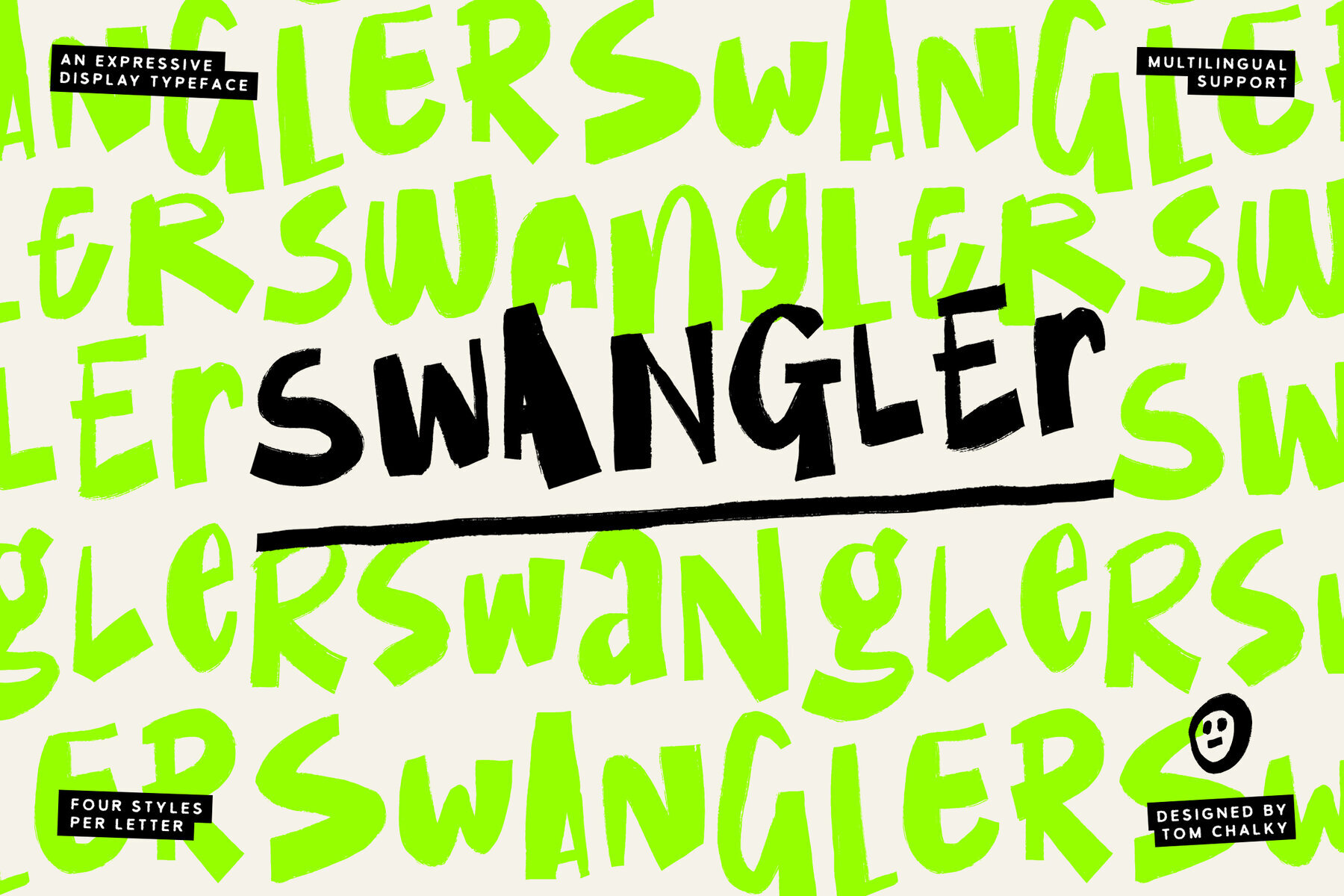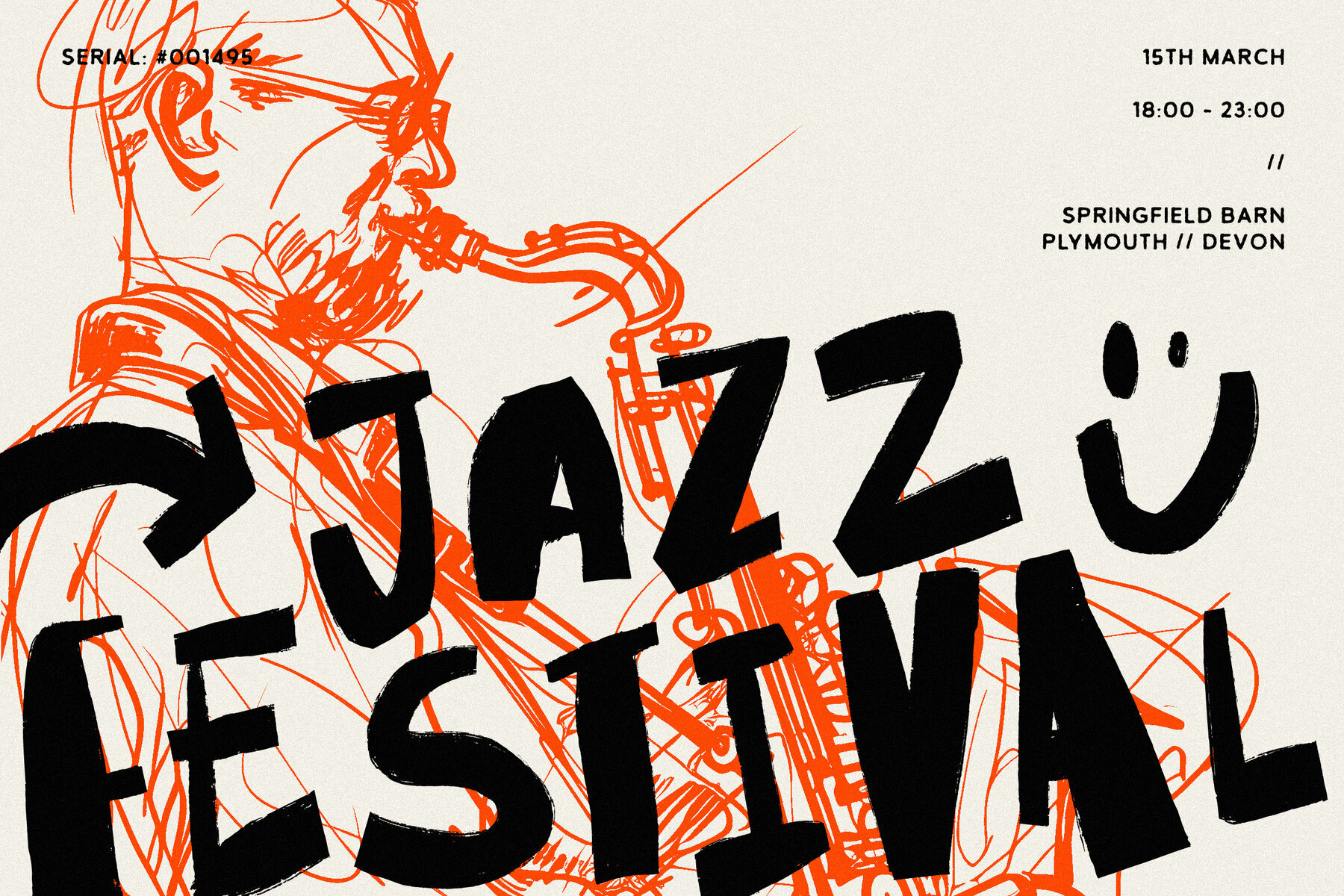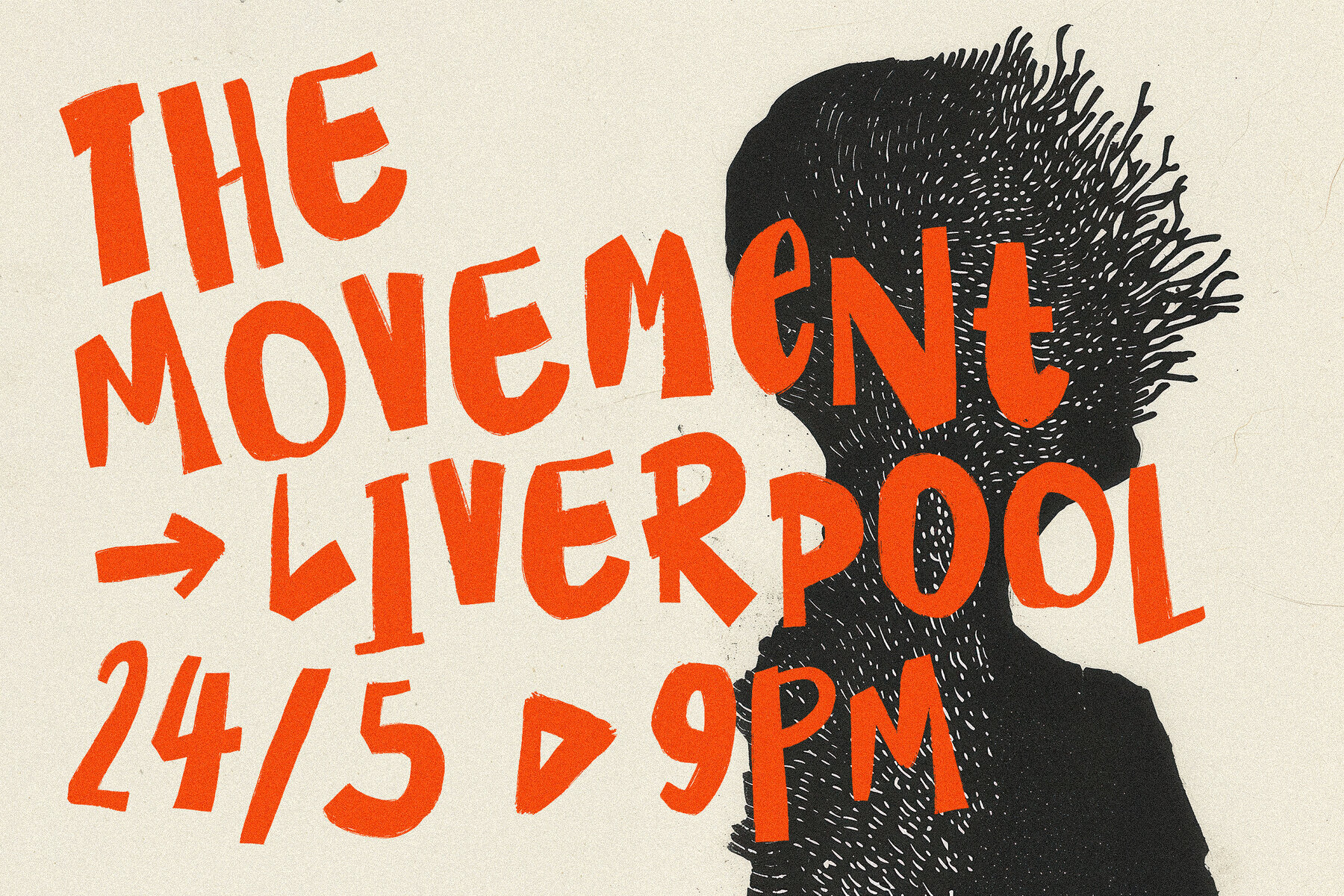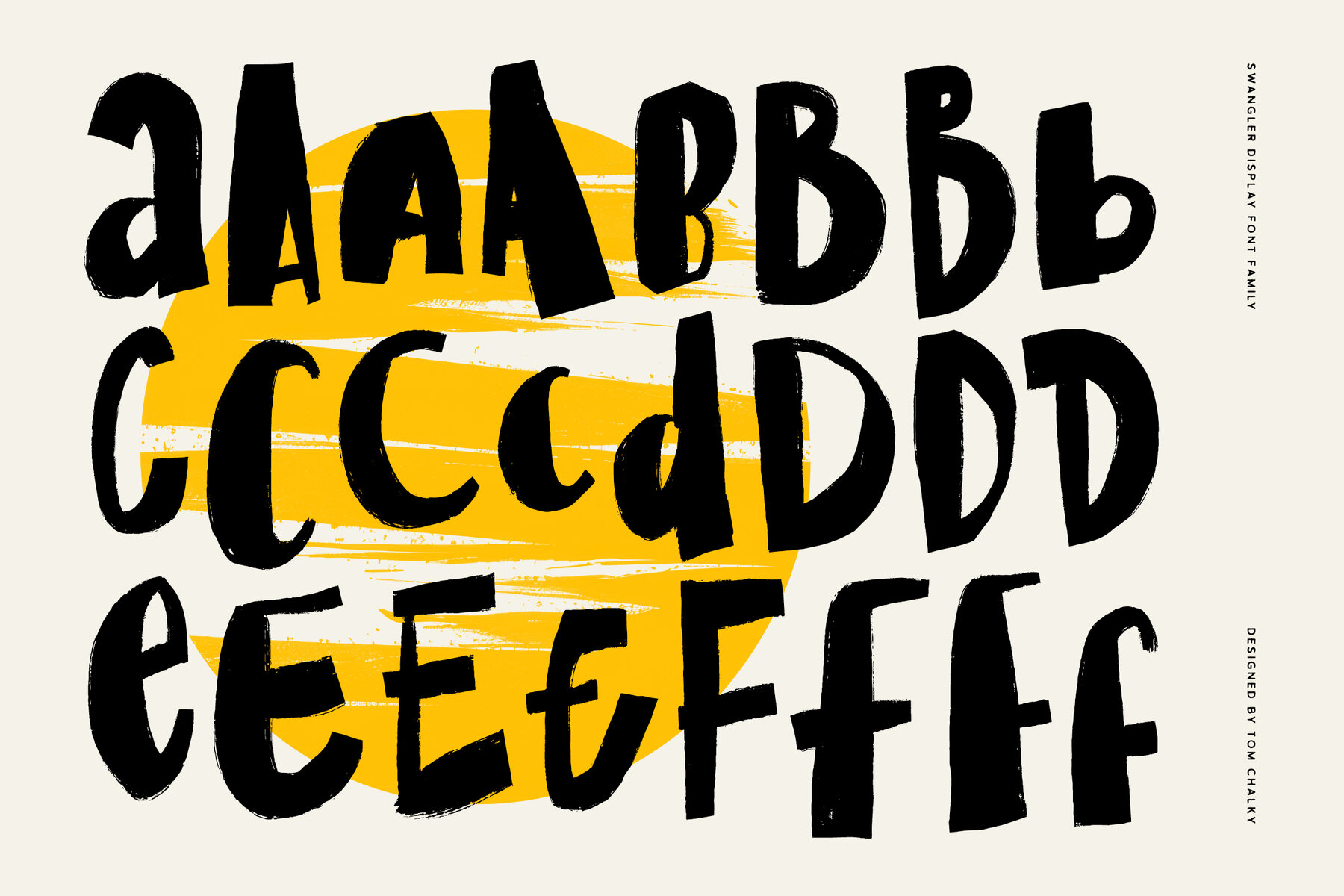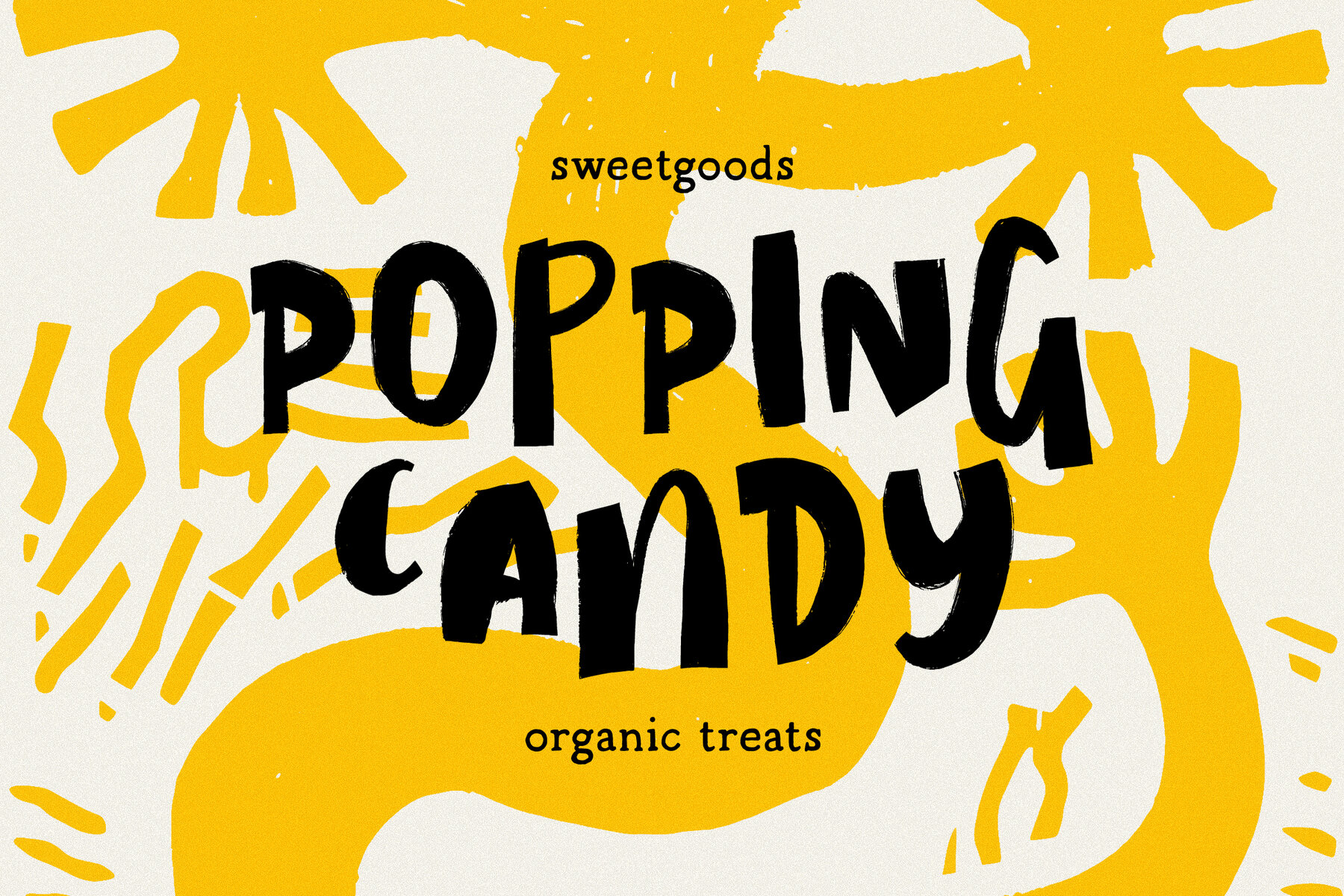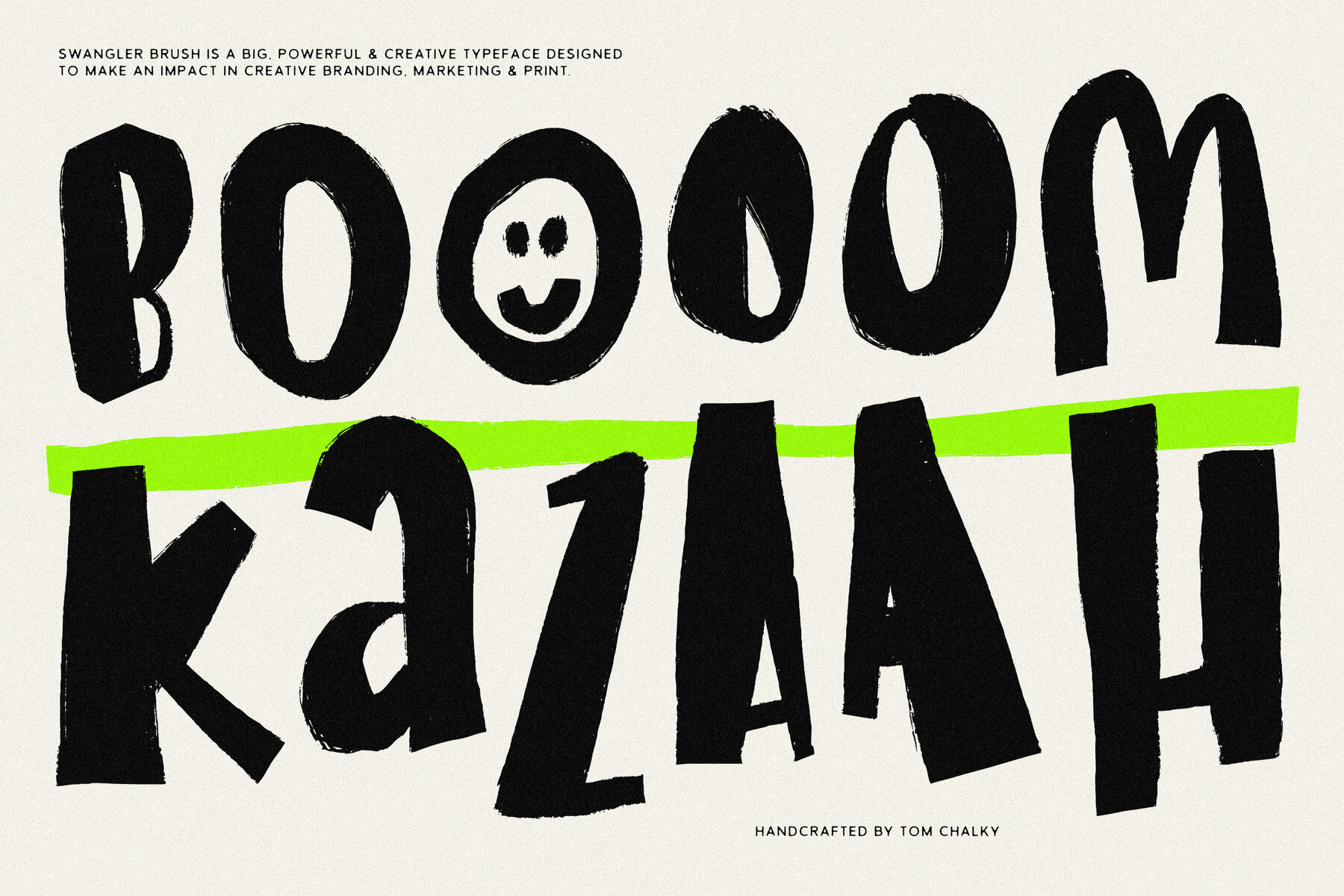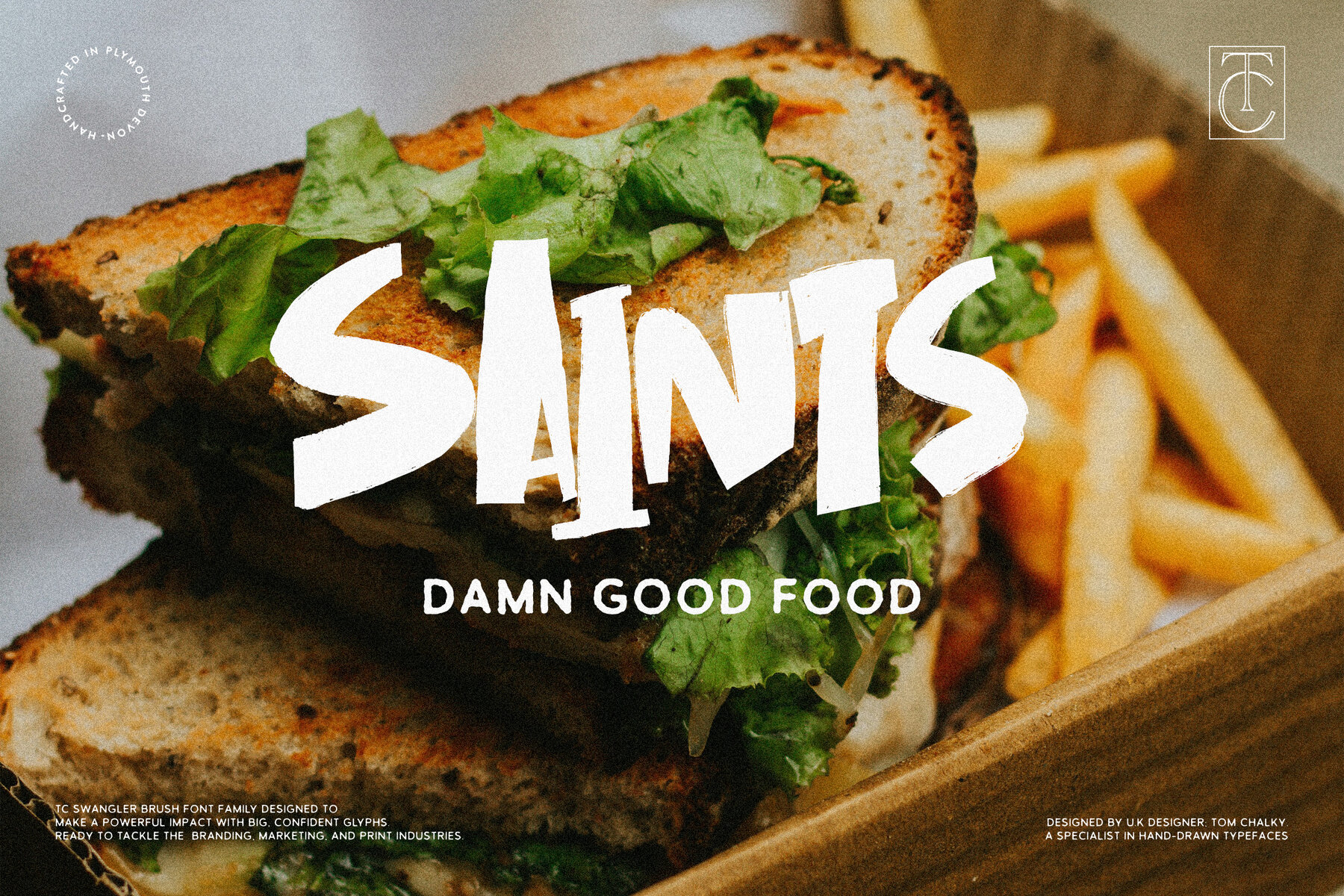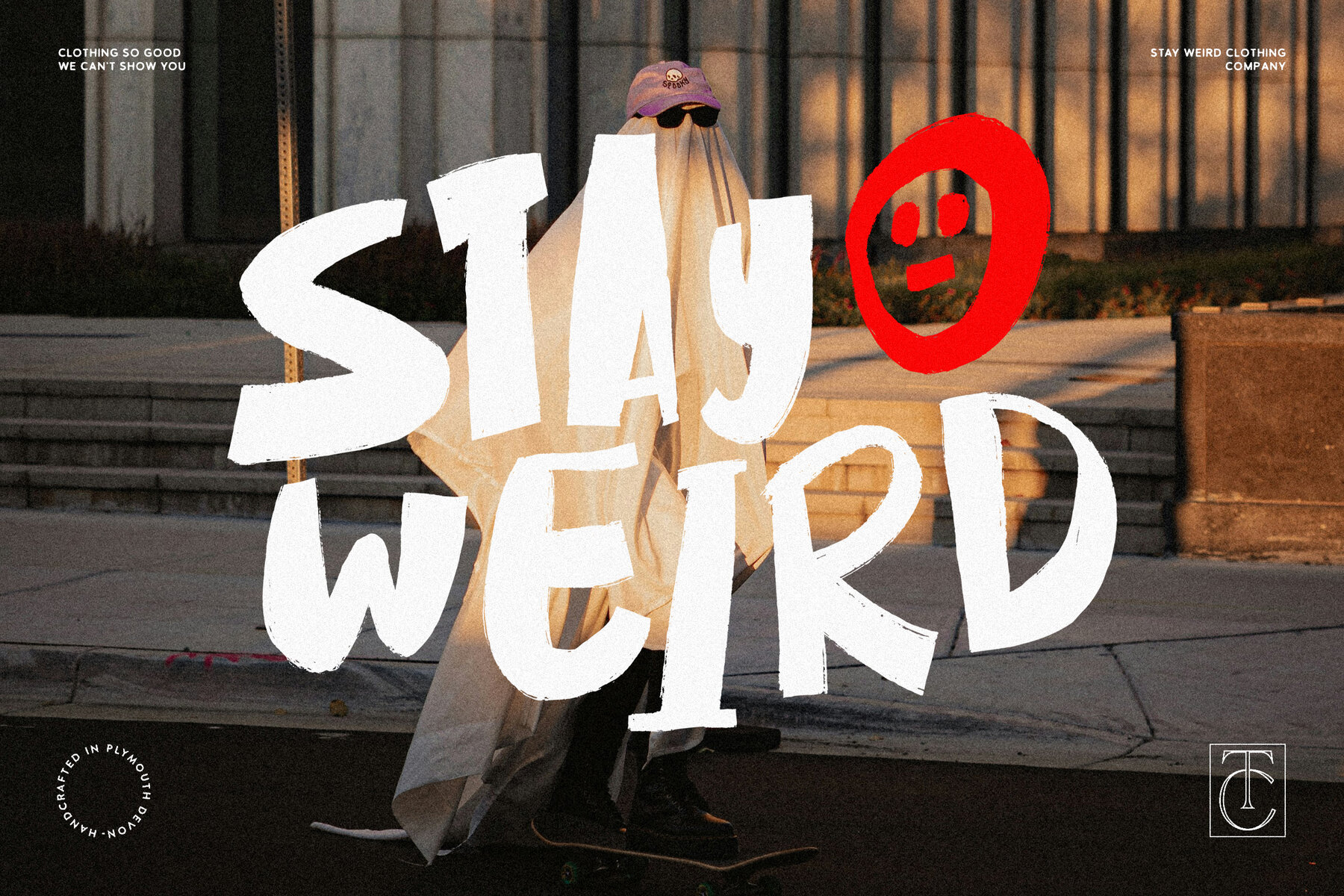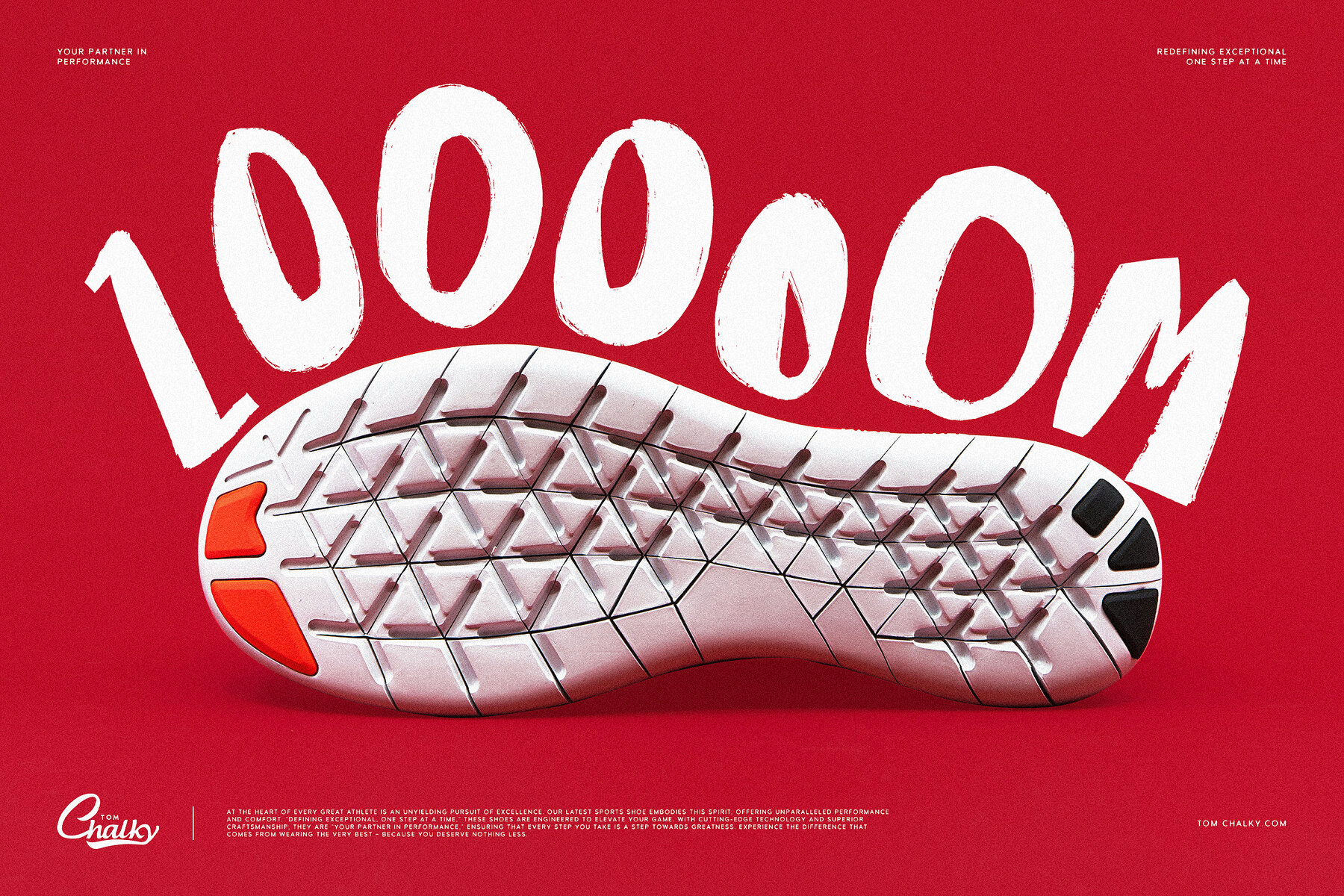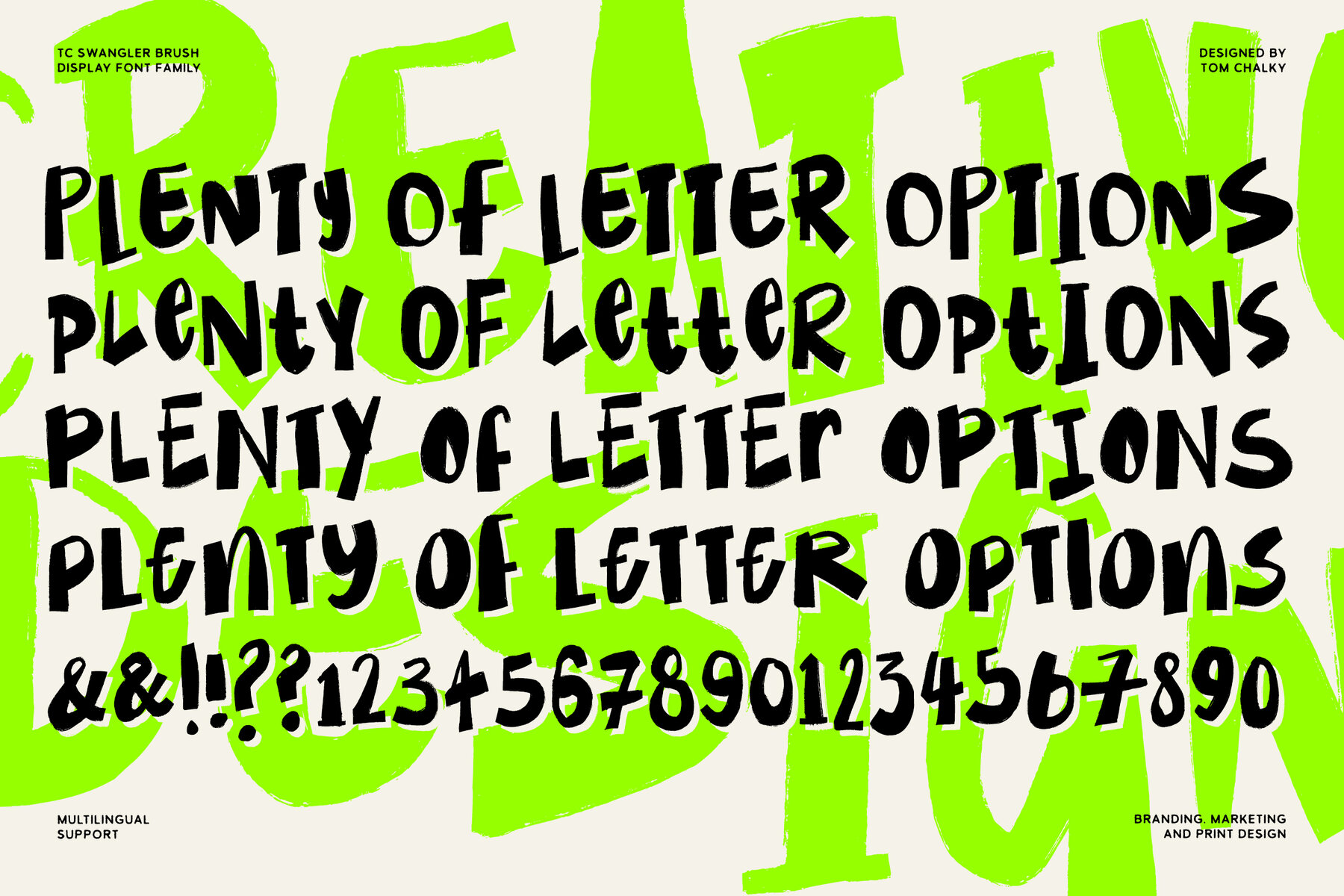
TC Swangler Font
TC Swangler Brush Regular
TC Swangler Brush Alt
Introduce a splash of spontaneity and flair to your designs with 'Swangler,' a typeface that's as bold and confident as it is expressive. Swangler is designed not just to be read, but to be experienced, making it perfect for projects that require a touch of personality and impact. Why Choose Swangler? Swangler stands out with its handcrafted look inspired by dynamic event posters and vibrant marketing campaigns. Each character comes in four distinct styles, allowing designers to mix and match for a truly customized expression. This versatility makes Swangler ideal for branding, advertising, and editorial design where a statement is needed. Unique Features: Design Uses: Swangler is particularly effective in creating eye-catching headlines, standout branding, and unique marketing materials. It's also perfectly suited for poster designs, apparel graphics, and any project that benefits from a hand-drawn, energetic aesthetic. Perfect Pairings: While Swangler is impactful on its own, it pairs beautifully with sans-serif fonts as seen throughout the presentation images. These fonts work best when much smaller, allowing Swangler to take center stage for maximum impact. The Inspiration Behind Swangler: Swangler draws inspiration from the lively visuals of contemporary urban culture. This font is not just a typeface but a celebration of expressive typography, crafted to inject character and authenticity into every design. A great tool for creators to make bold, unforgettable designs.